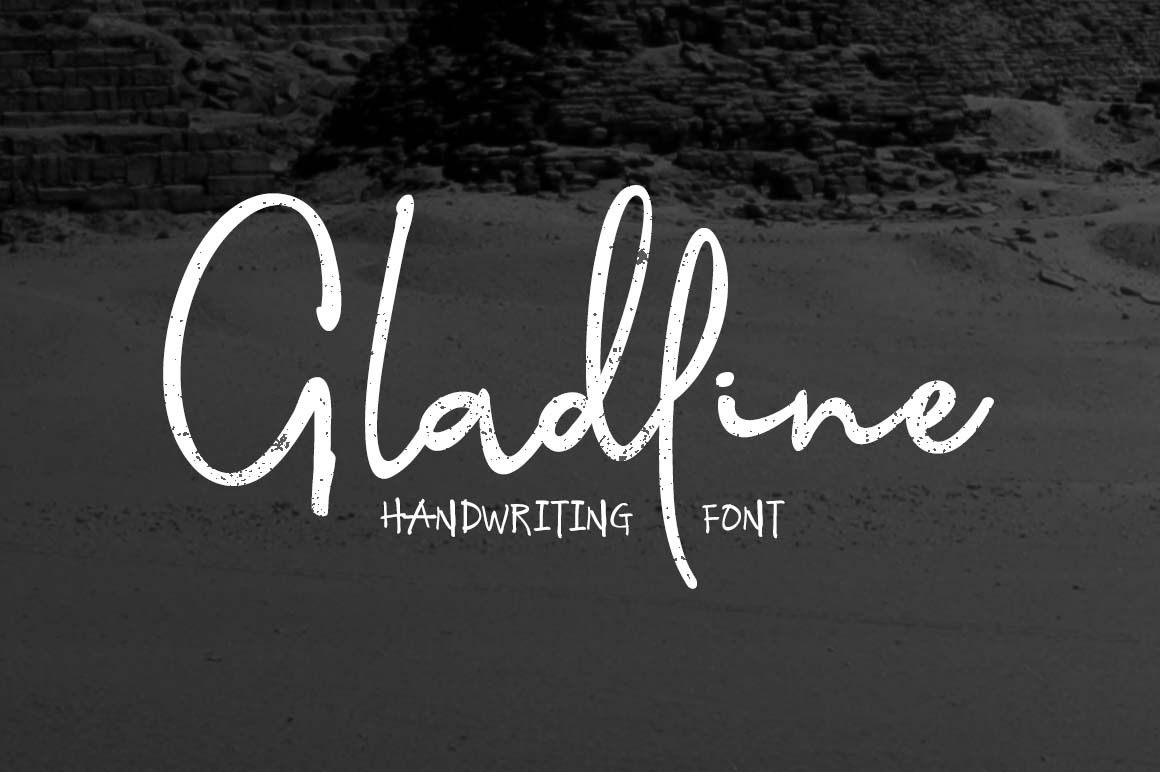
Gladline Script Font
Gladline Script Font is a set of handwritten font, the font style elegant, smart, it contains a variety of shape changes, and many ligatures, suitable for all kinds of ads, website, and banner title, also can be used for signature design.